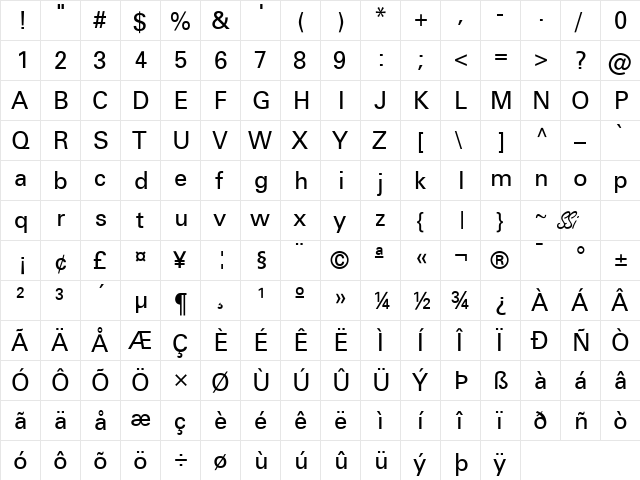
Nova Medium SSi Medium Font Preview
Nova Medium SSi Medium
Design Context for Nova Medium SSi Typeface
Nova Medium SSi takes a measured approach to typography — its balanced proportions and neutral character make it a reliable workhorse for both digital and print work.